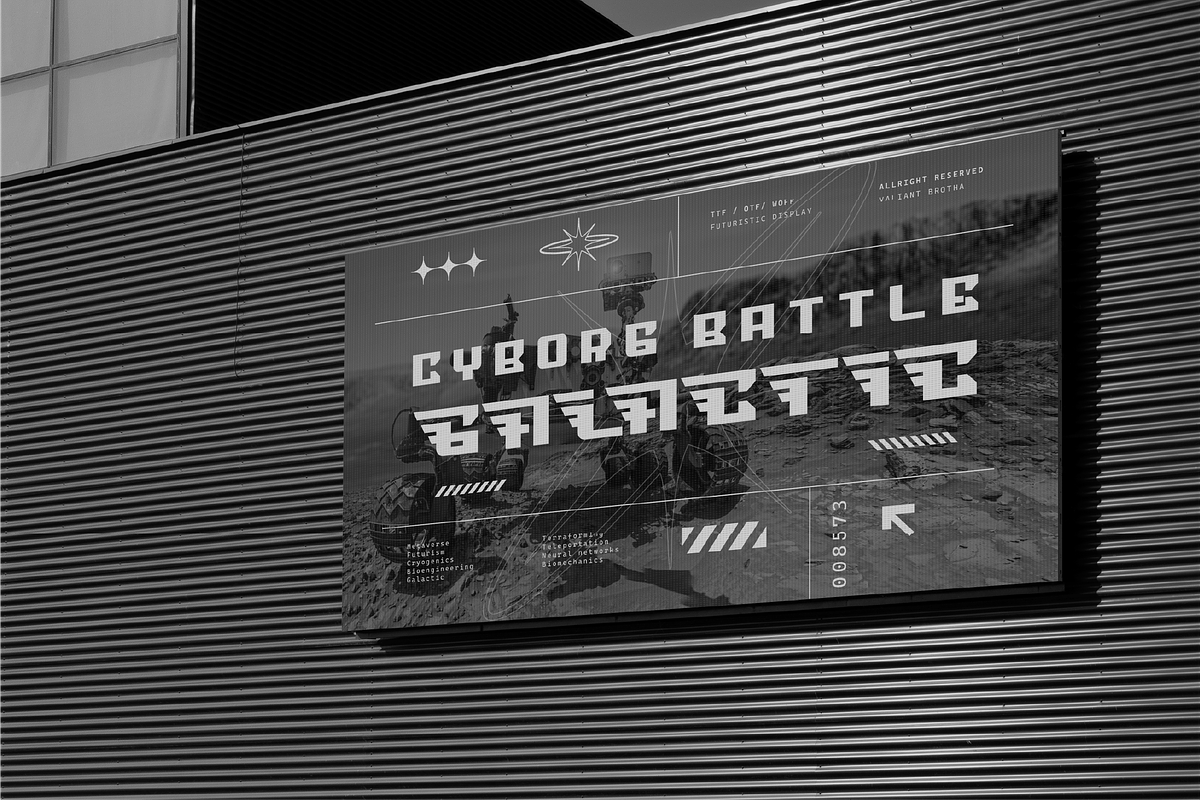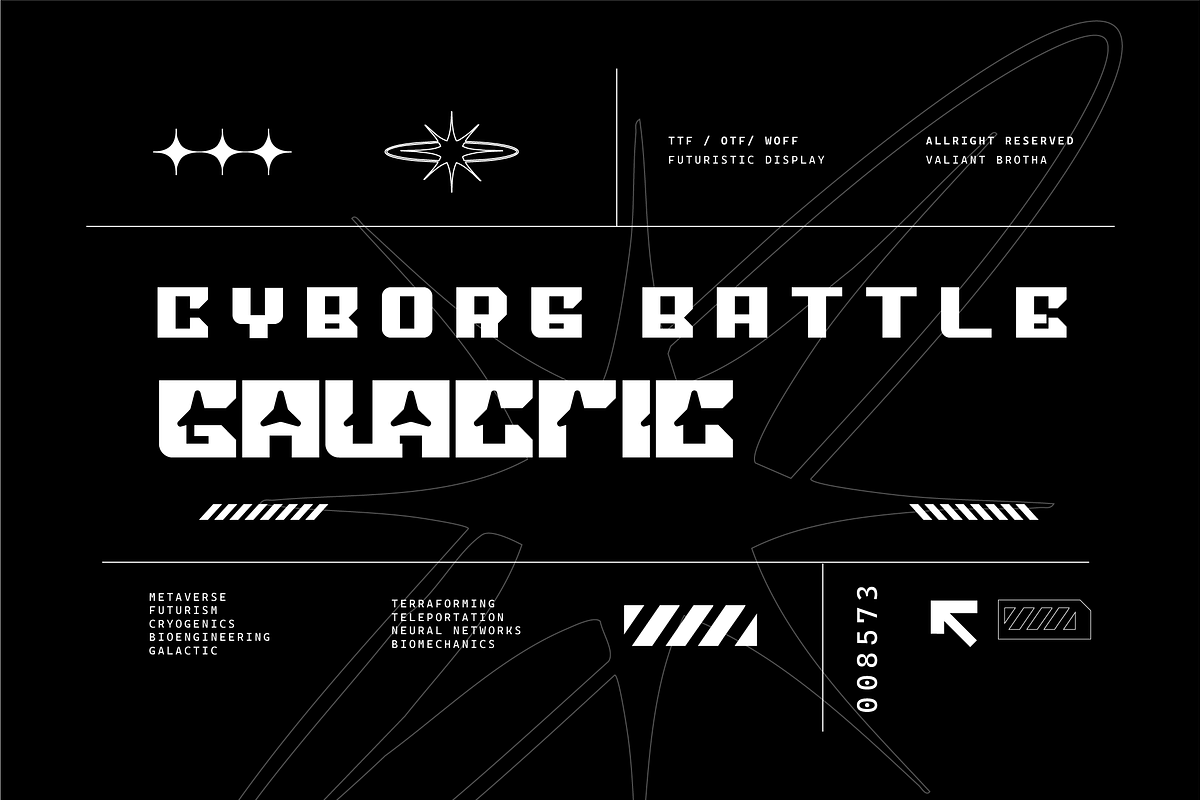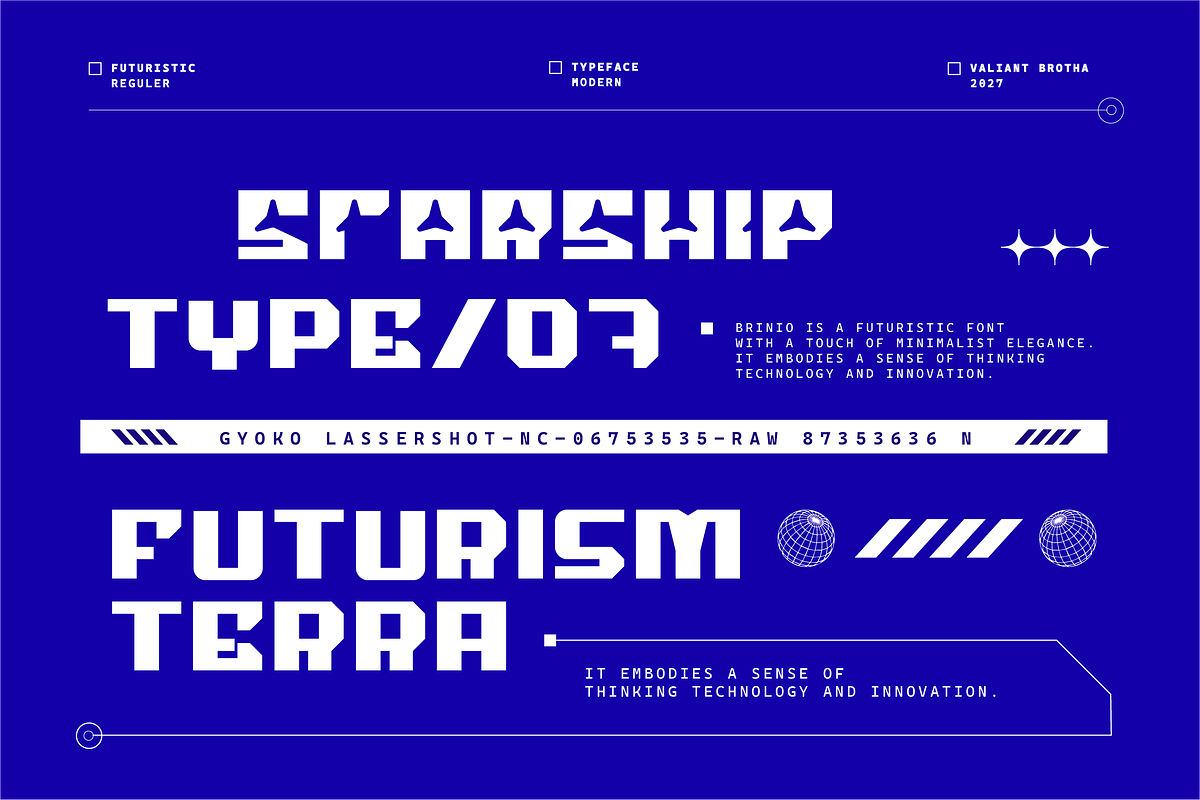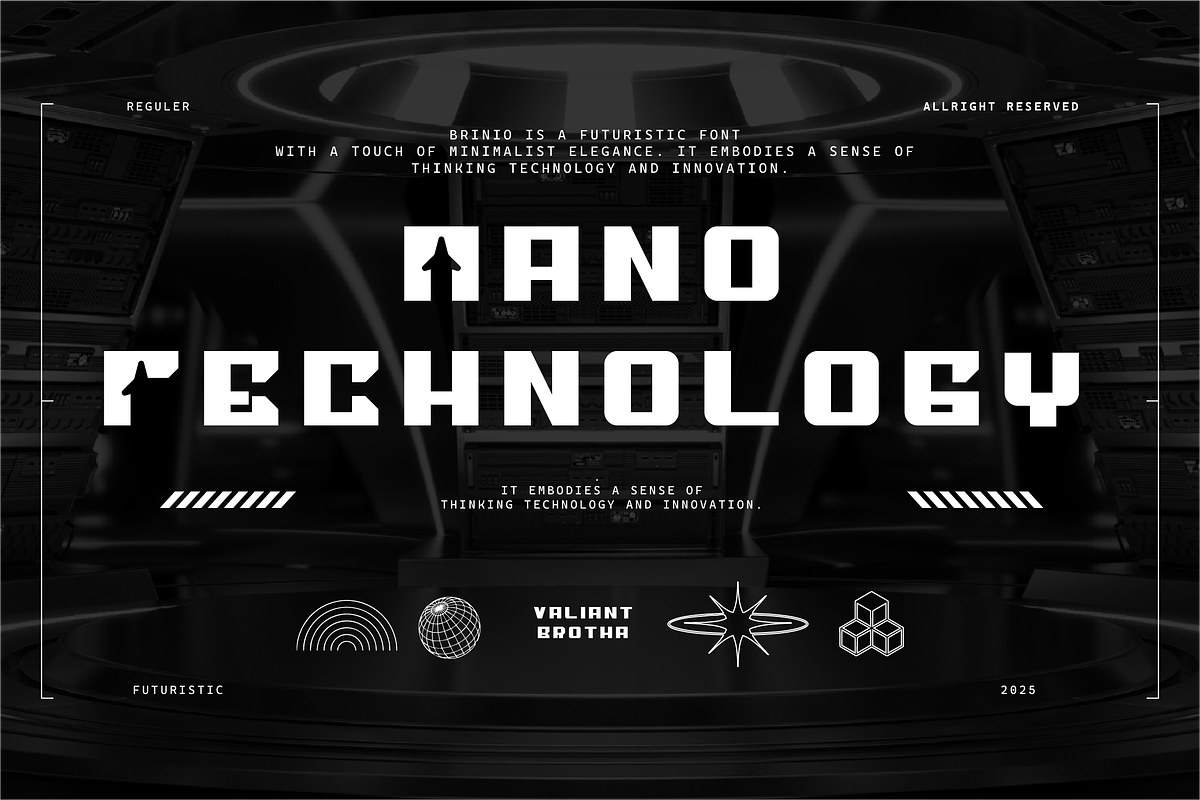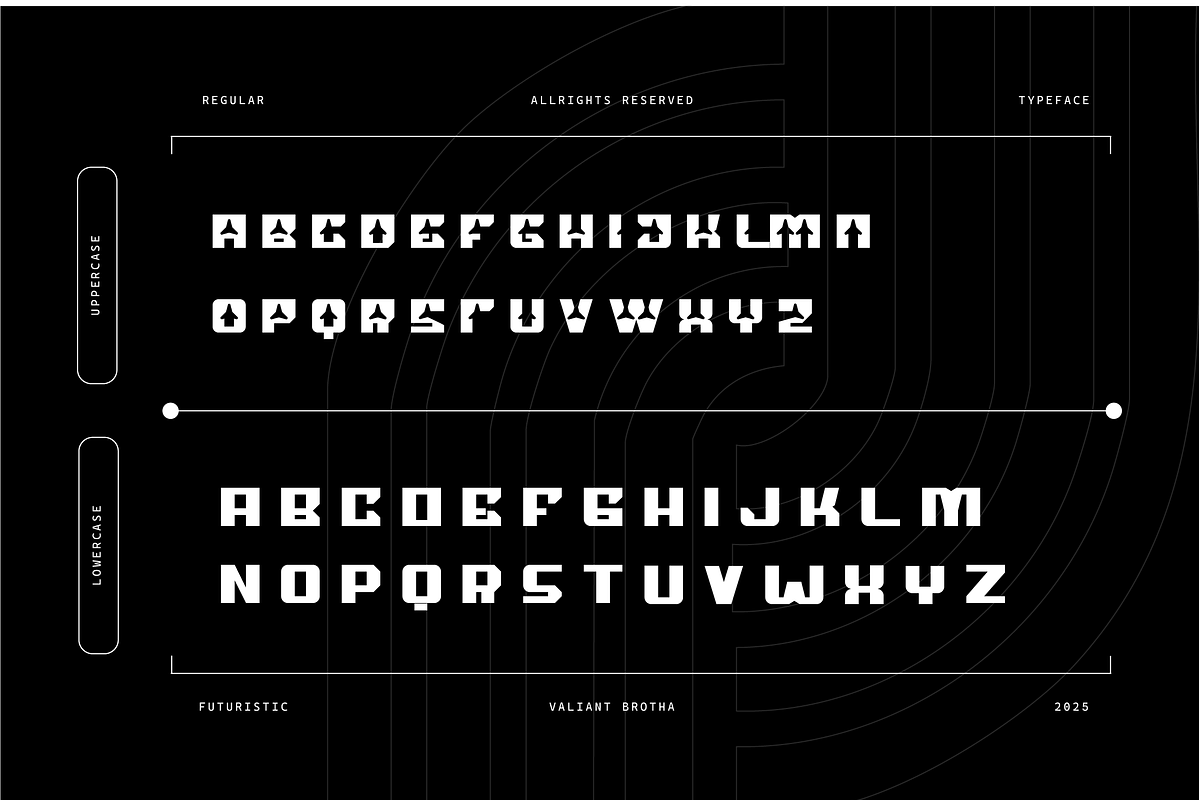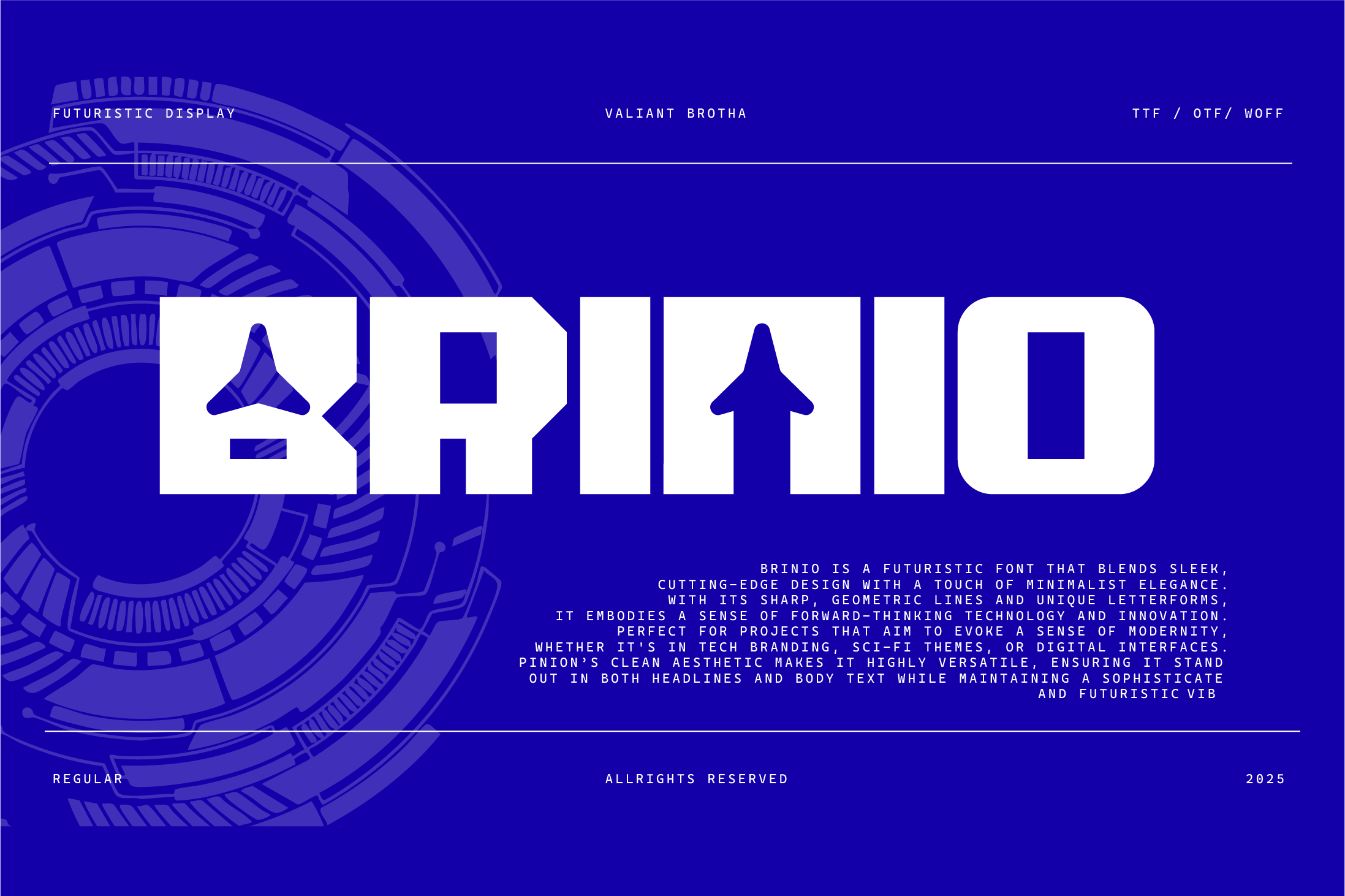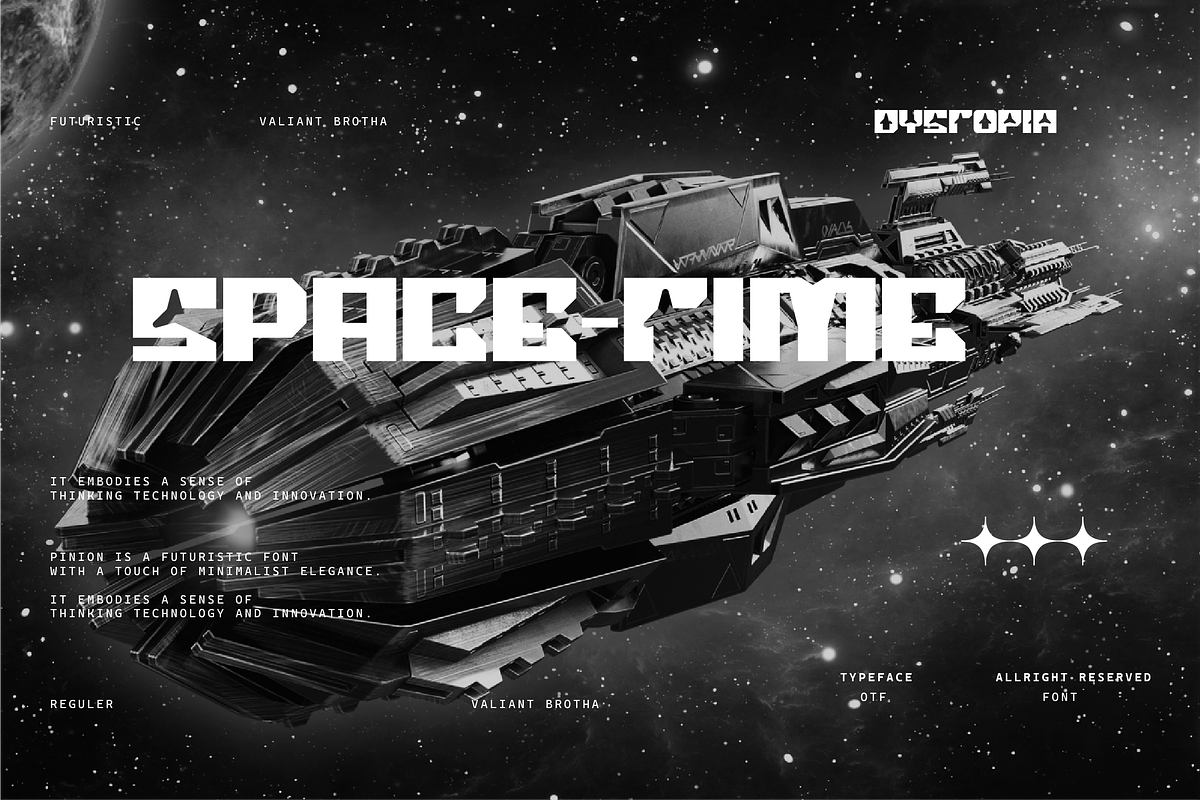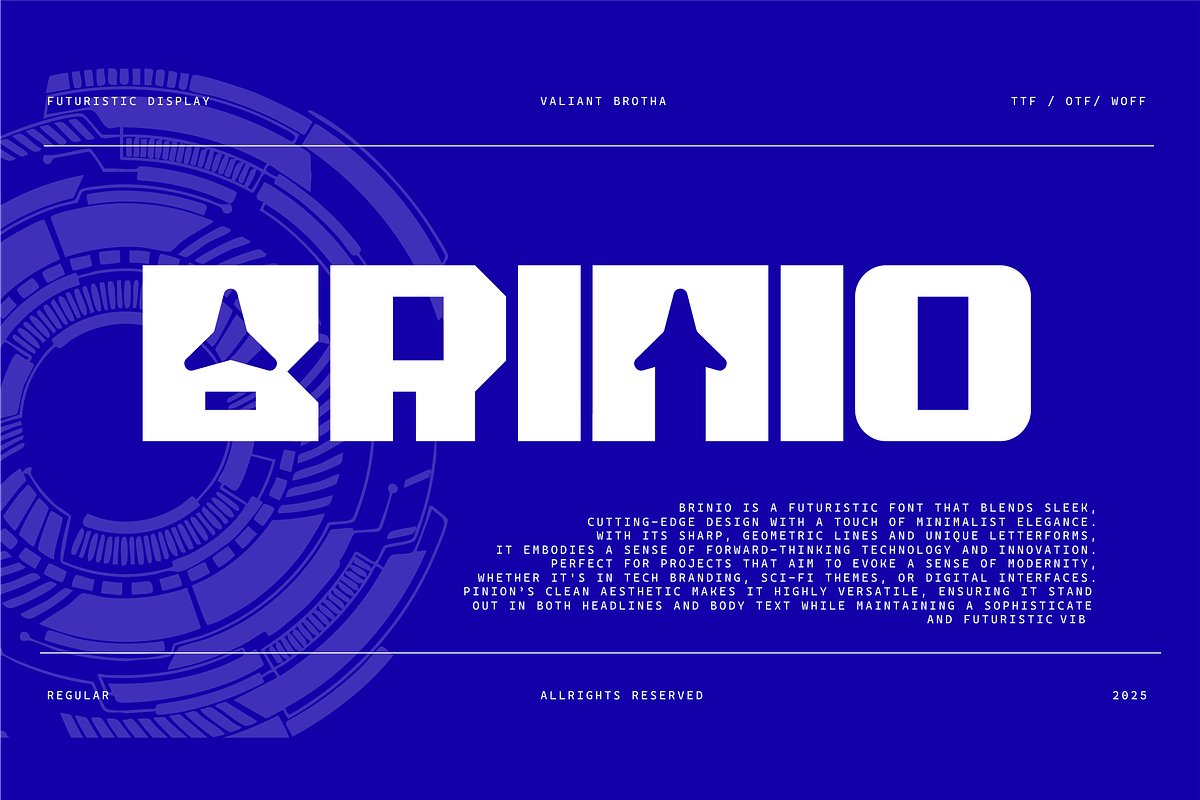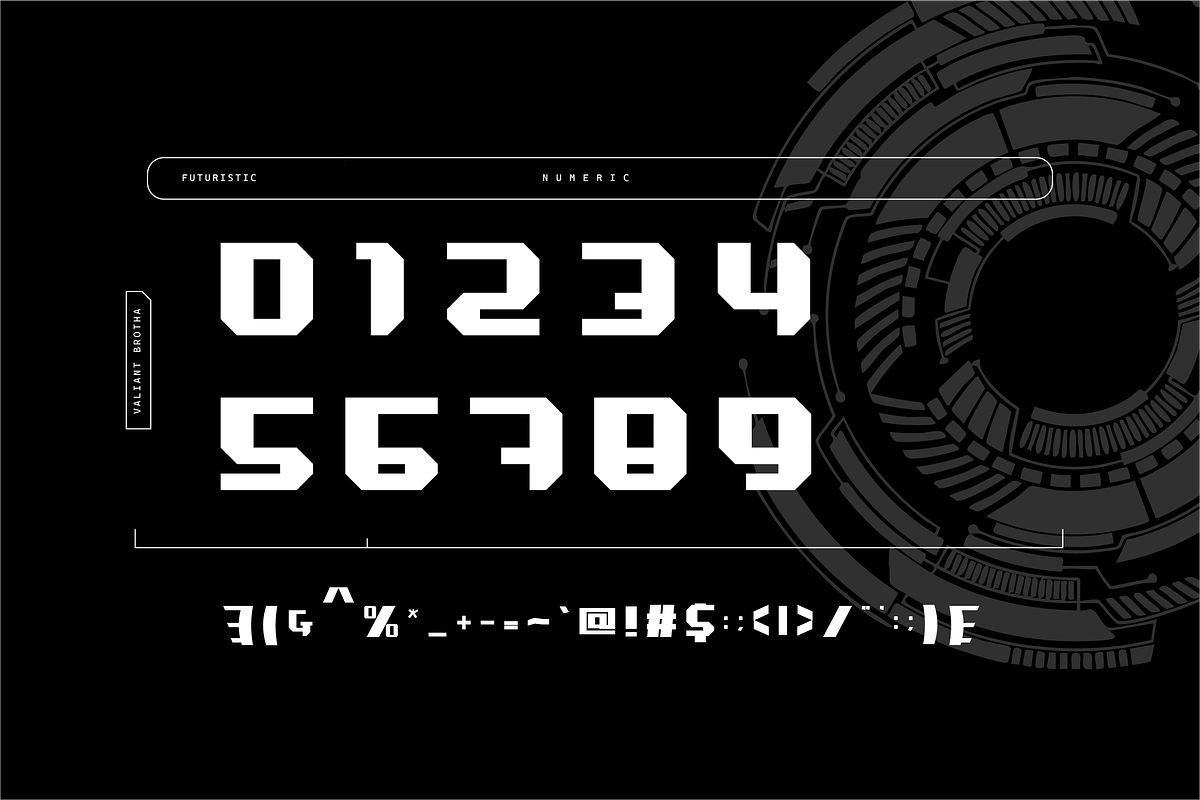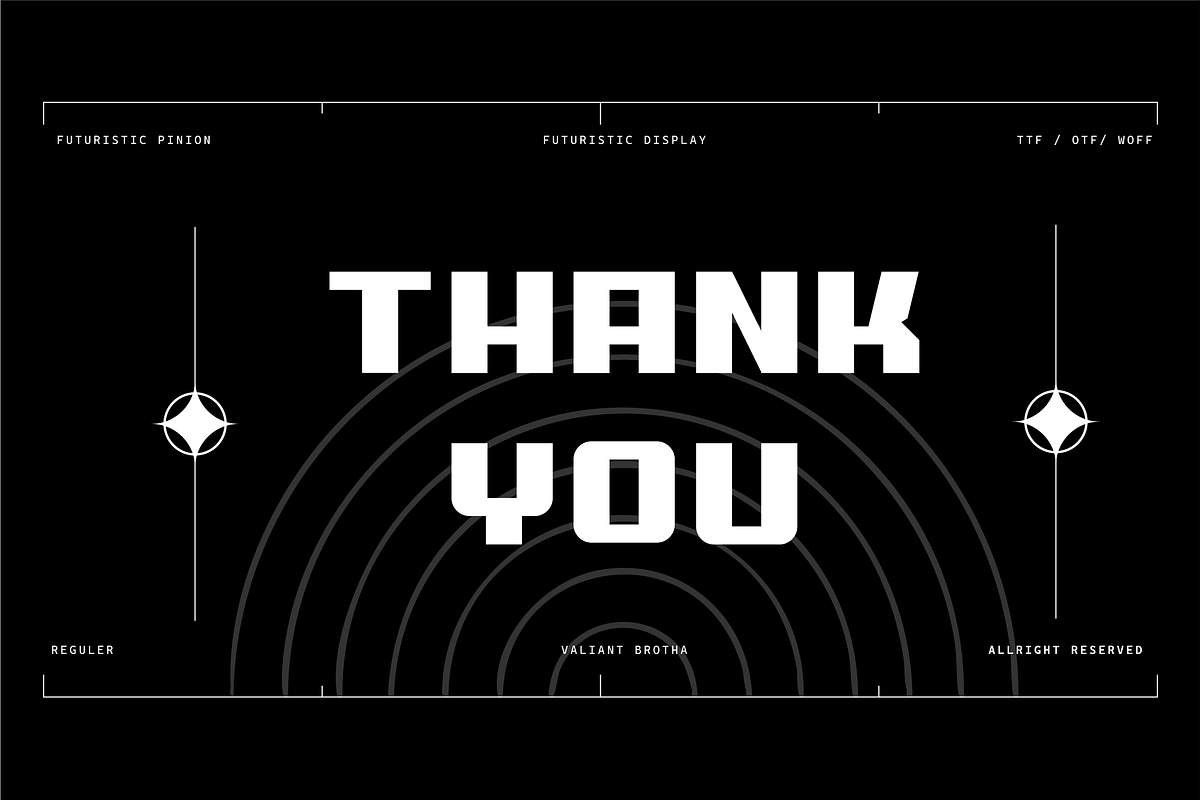
VB Brinio - Futuristic Display Font
Brinio Font is a bold, futuristic typeface that combines sharp angles with smooth curves, giving it a sleek and modern aesthetic.